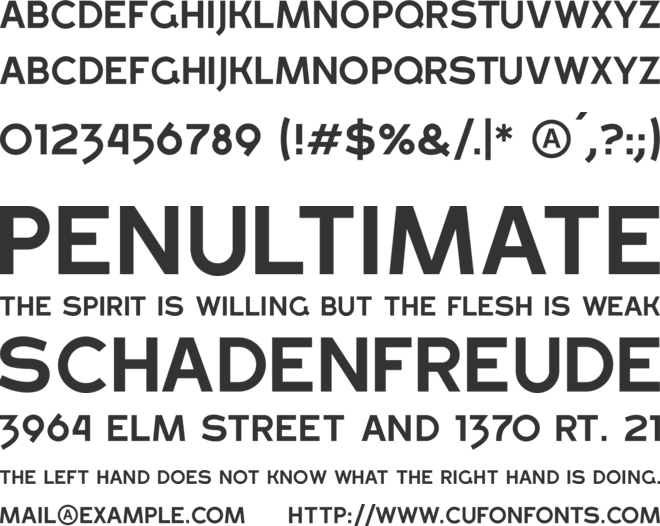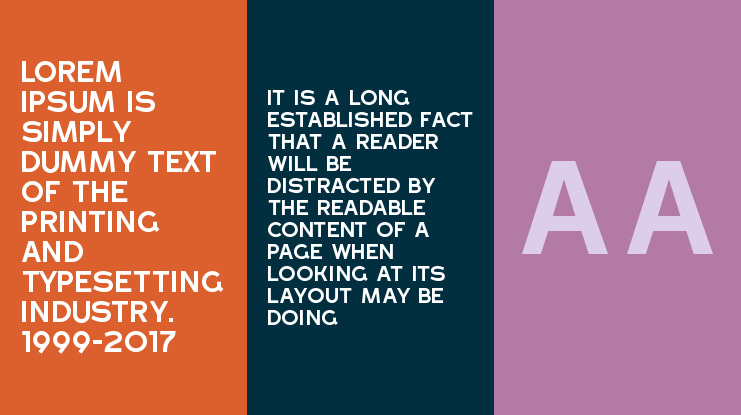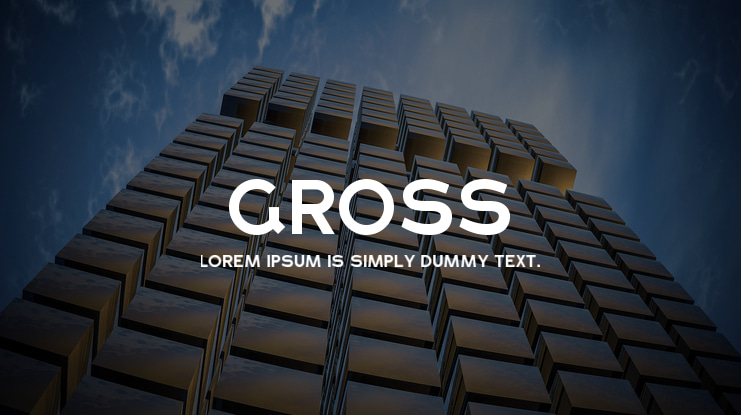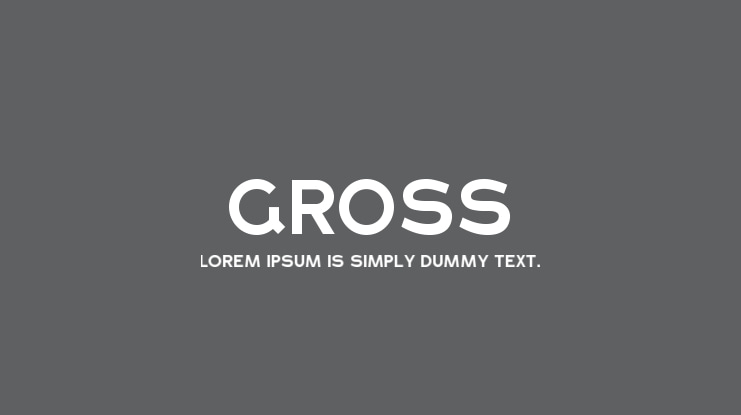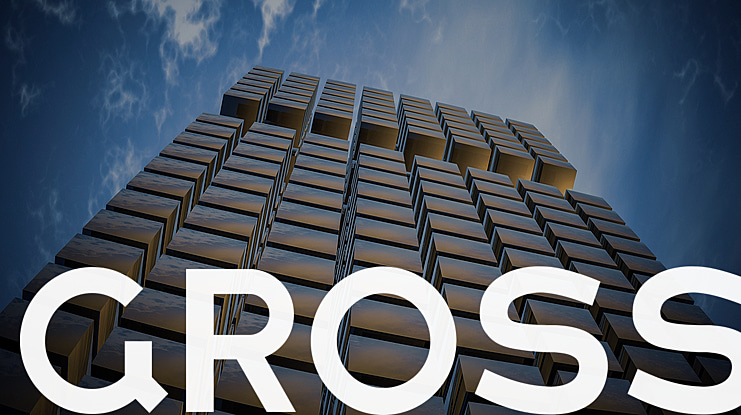
Gross Font
Marko Jovanovac
Gross regular
Gross regular is part of typographic restoration project LLTT. Original sign is situated in city Opatija, Croatia. More about the project you can find on LongLiveTheType(dot)com